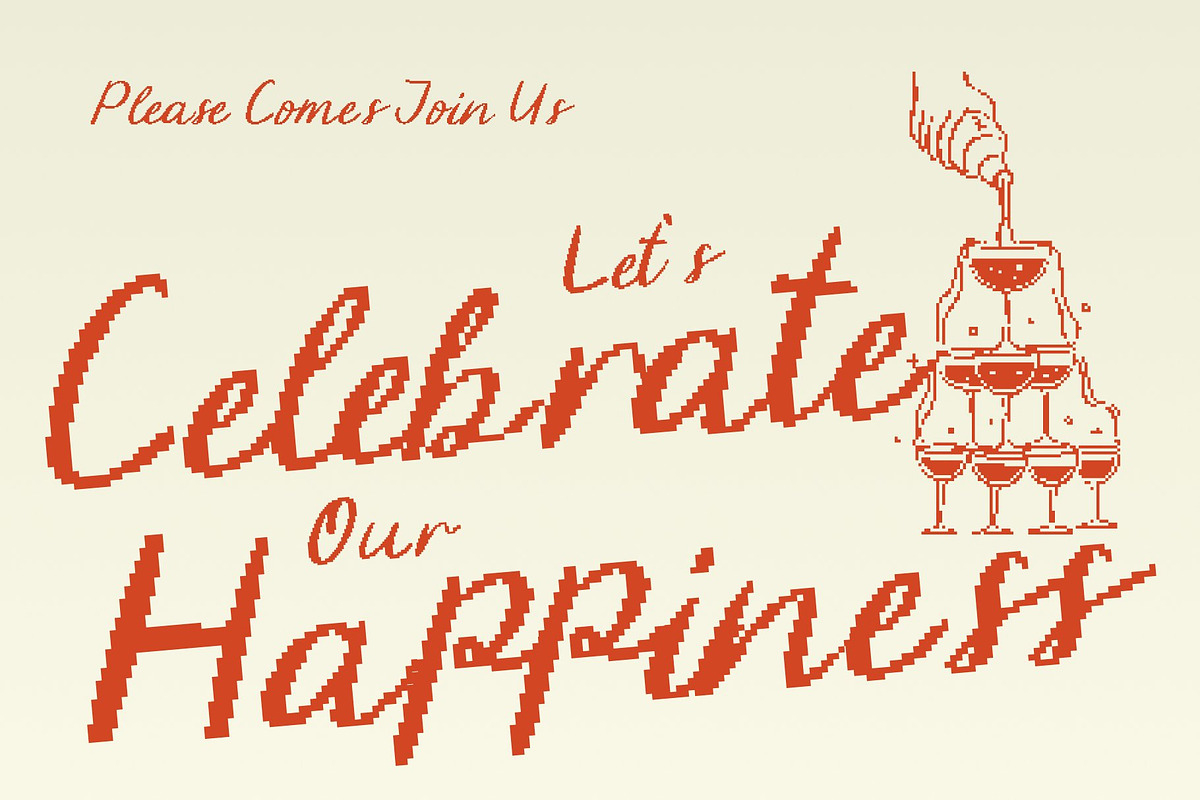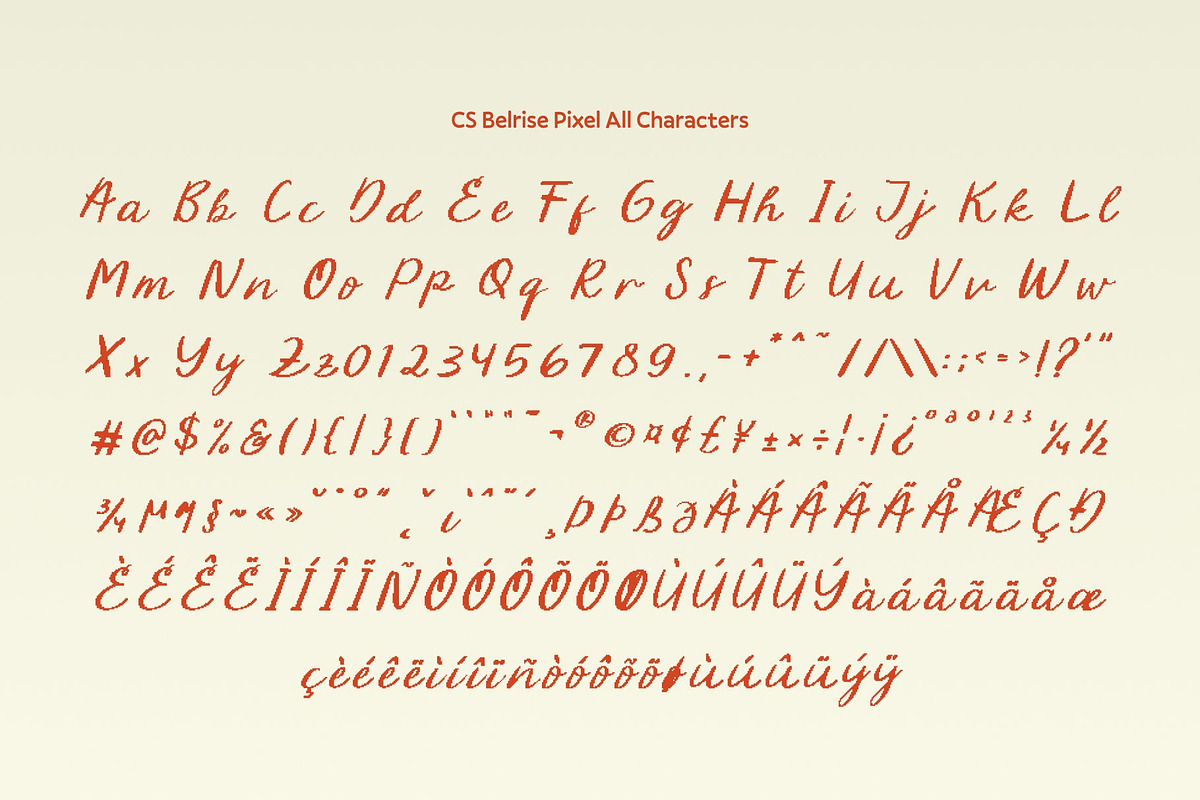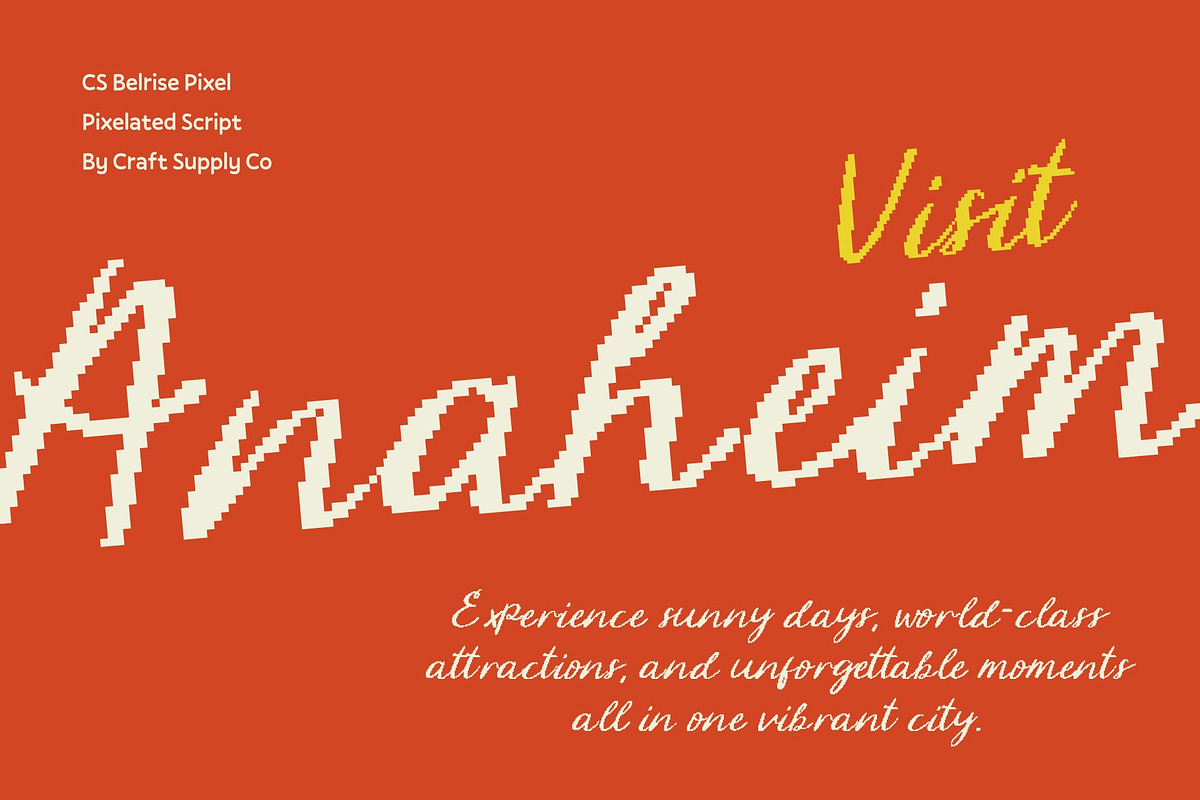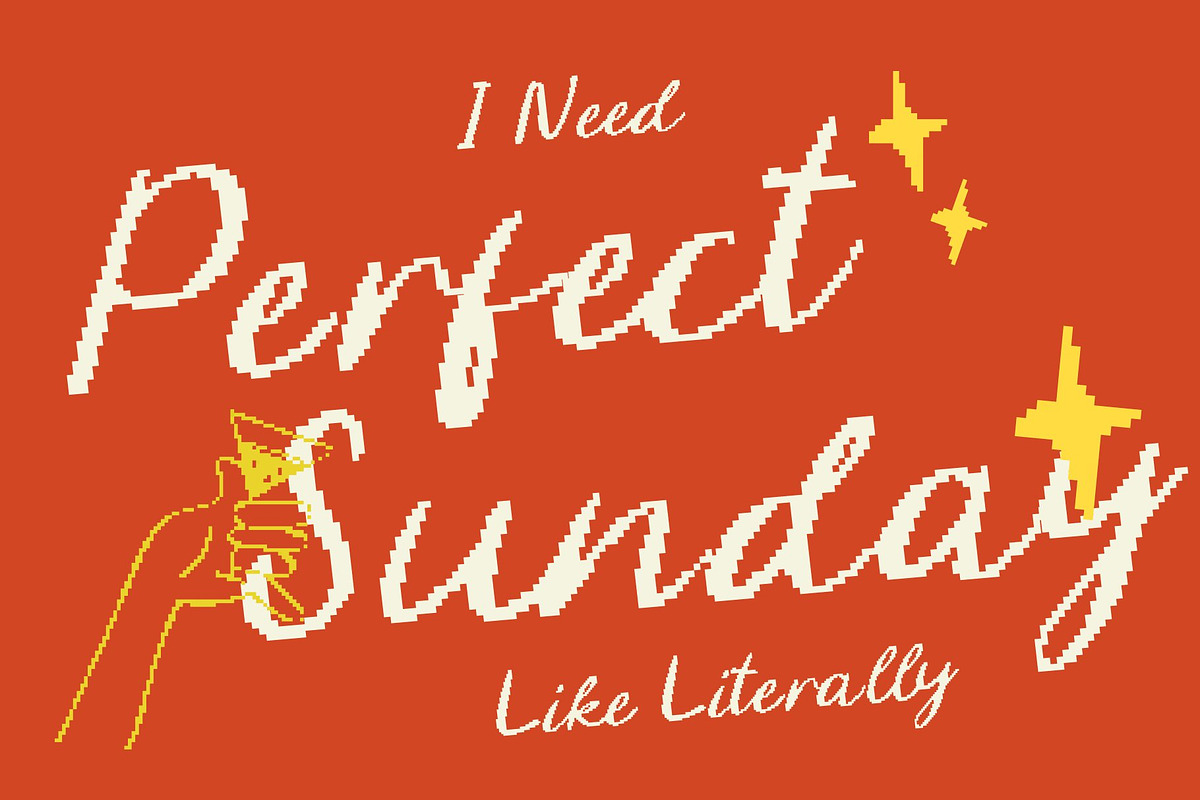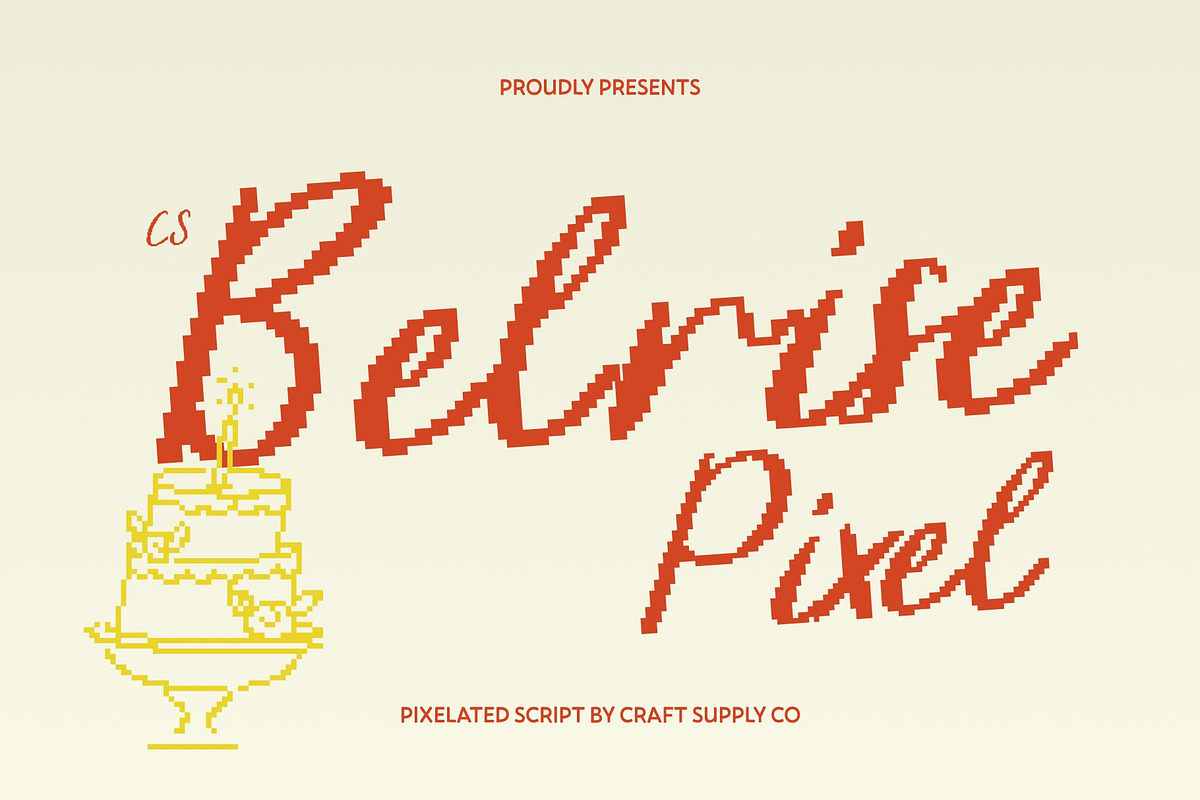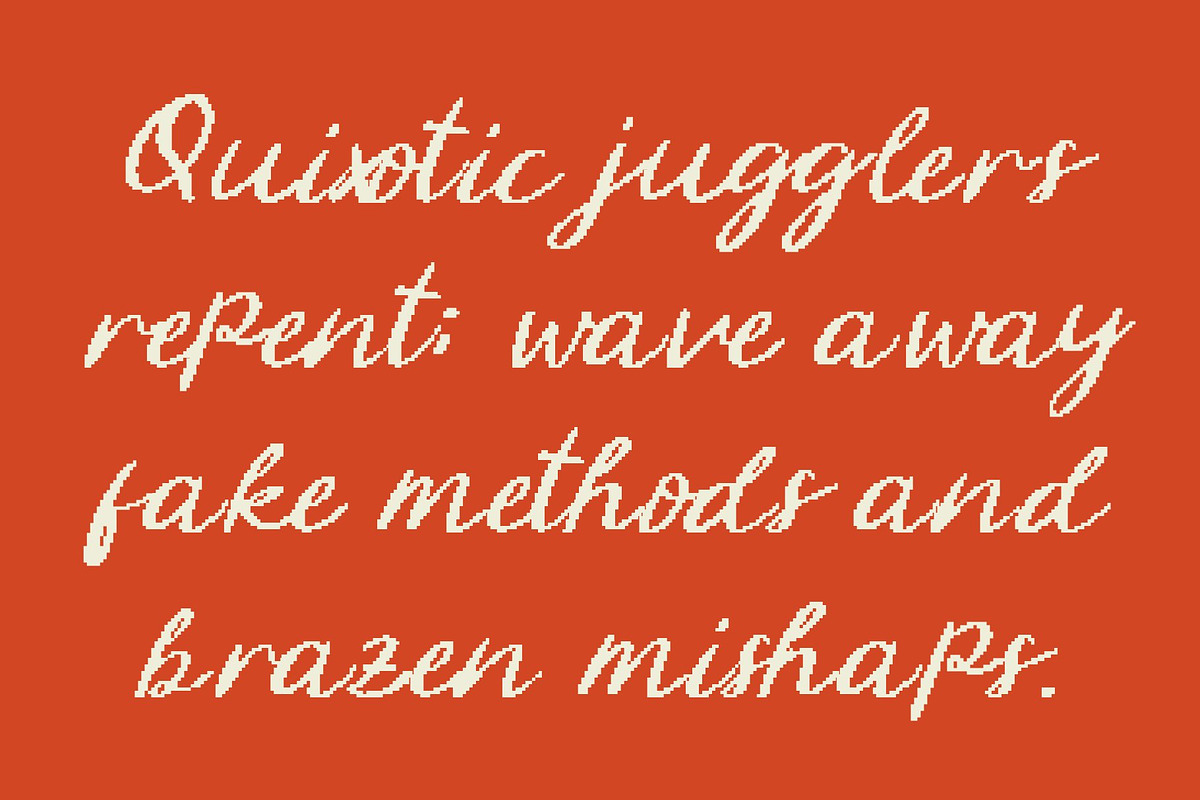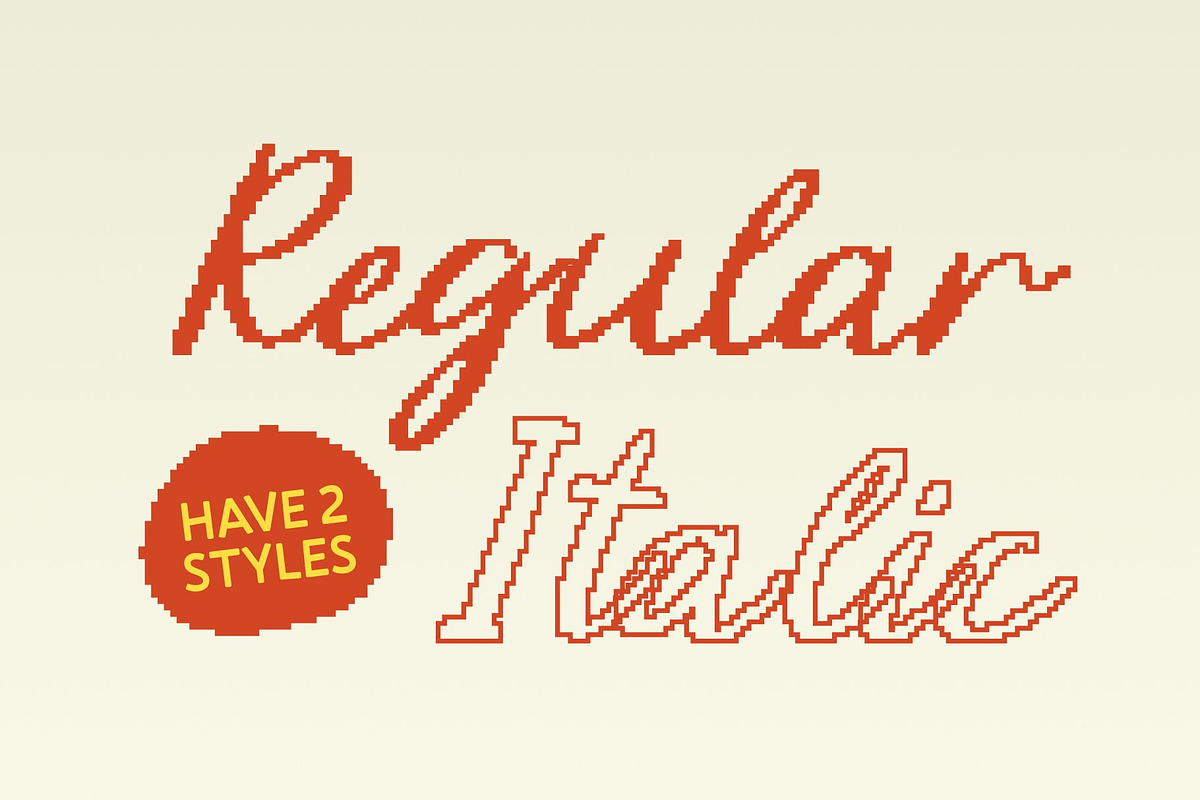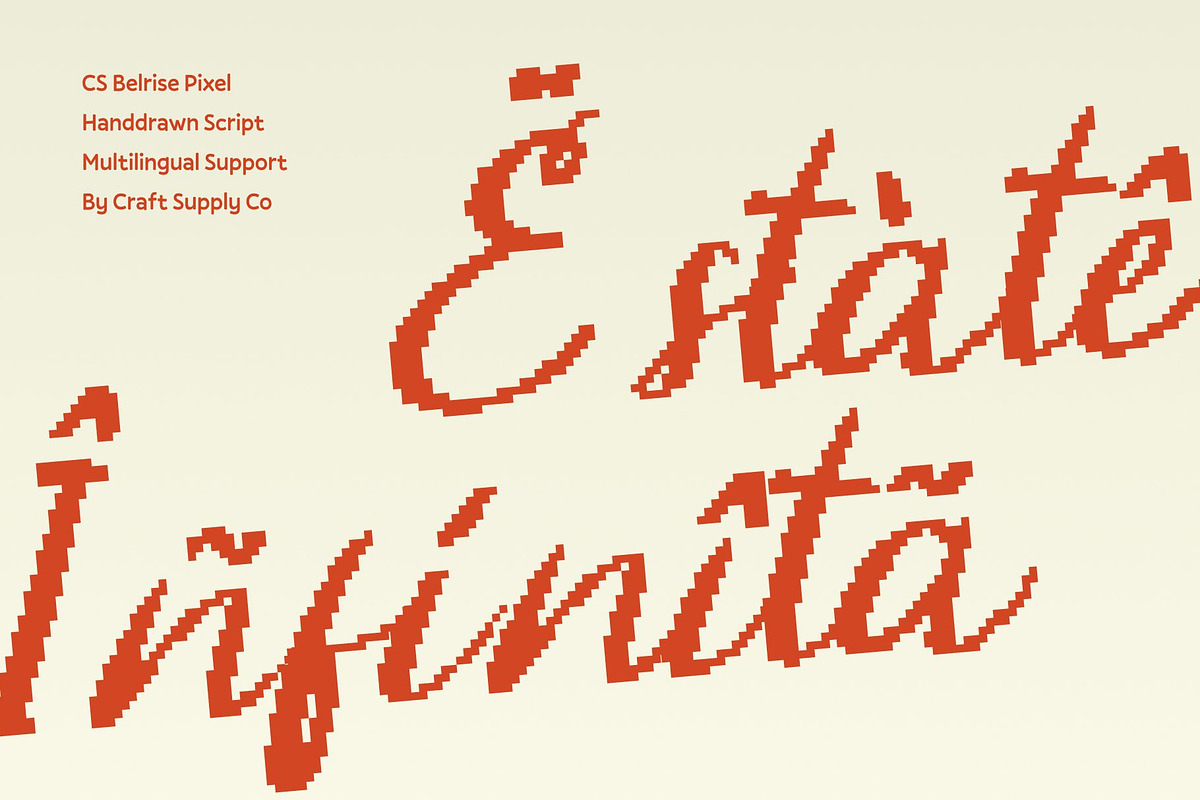
CS Belrise Pixel
CS Belrise Pixel – Beauty Handwriting Script with Mediterranean Digital Grace
Pixel Handwriting with Soft, Expressive Flow This is a beauty handwriting script font transformed into a distinctive pixel-based style. Built from soft digital blocks, its fluid handwritten strokes are reinterpreted with an 8-bit structure, creating a unique blend of elegance and retro technology. The result is a font that feels expressive and personal, yet unmistakably digital and visually nostalgic.
Mediterranean Charm with Retro Pixel Aesthetics Inspired by graceful Mediterranean handwriting, this font carries warm, flowing movement while embracing an old-school digital appearance. The pixel construction gives it the charm of early computer graphics and vintage displays, while the script rhythm maintains a romantic, sun-soaked character. This fusion creates a font that feels both nostalgic and stylishly modern.
Elegant Pixel Script for Creative Branding This font works beautifully for branding and packaging that seek a handcrafted feel with a digital twist. Its elegant pixel strokes add personality and refinement to logos, product labels, beauty brands, and lifestyle designs. The retro script style makes designs feel artistic, unique, and emotionally engaging.
Perfect for Retro Romantic and Digital Designs Ideal for wedding invitations, greeting cards, social media graphics, and creative digital visuals, this font delivers charm with a retro soul. This font brings together handwriting beauty, Mediterranean grace, and classic 8-bit aesthetics perfect for designs that celebrate romance, nostalgia, and creative expression.